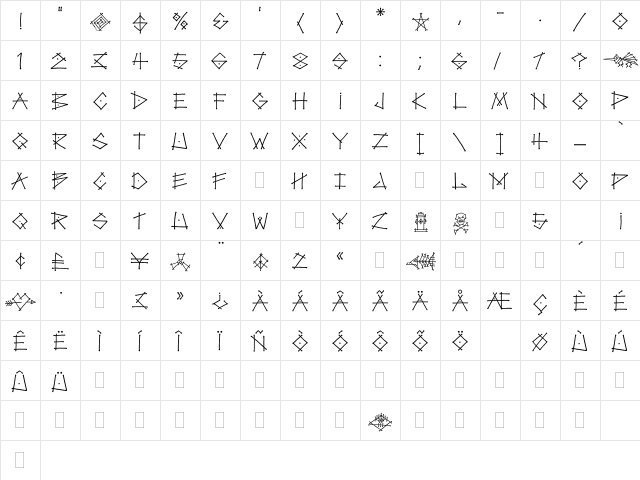
Tag LET Plain
Design Context for Tag LET Typeface
Tag LET is a composed and adaptable typeface that performs quietly and consistently across a wide range of design contexts.